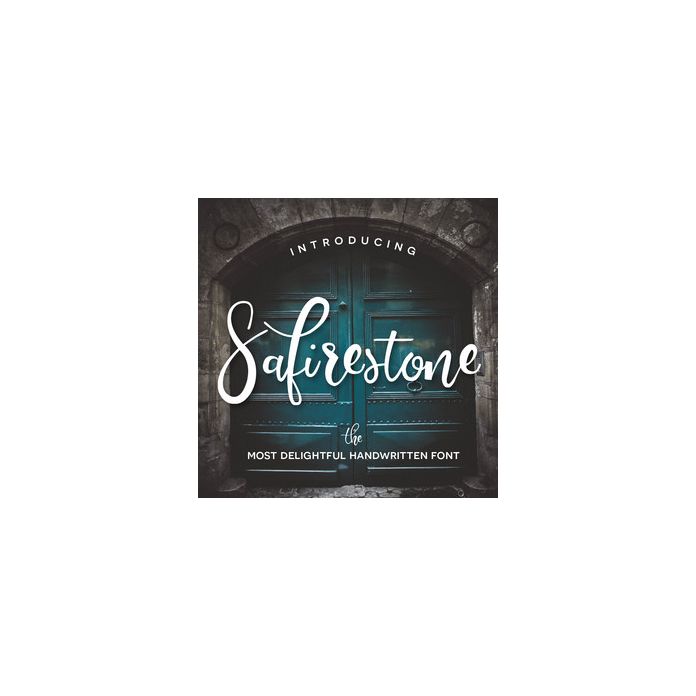
Safirestone is a delightfully handcrafted font that guarentees to make your designs pop! Comes with a full set of capitals, lowercase, numerals, punctuation, and international language support.